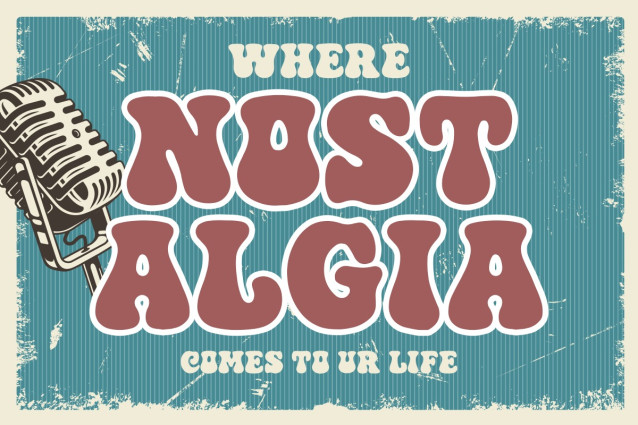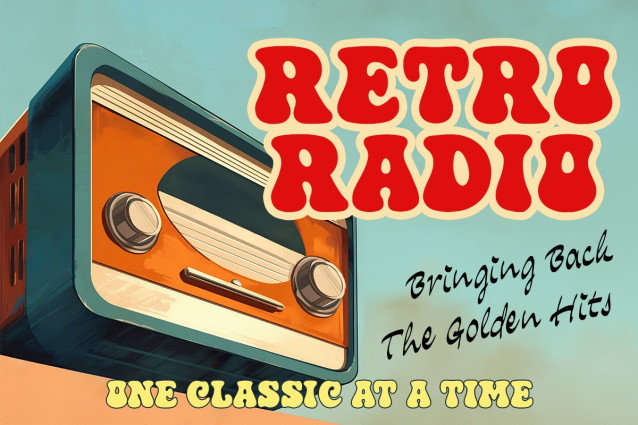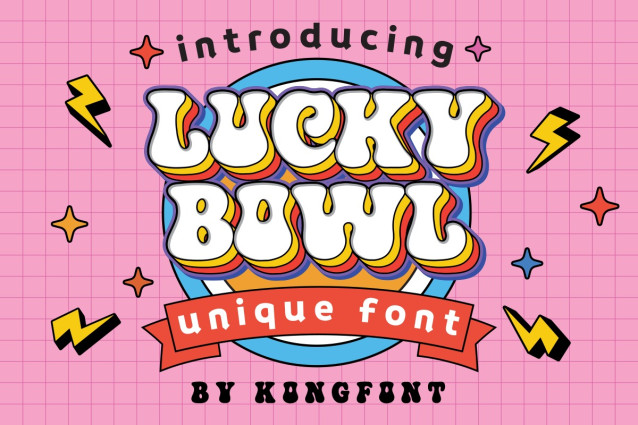
Lucky Bowl Font
Lucky Bowl Font a new look that is different from the general fonts. This font is a cool font that carries a vintage, simple, and cute feel. It can also be used as a bold and modern font. Lucky Bowl Modern Groovy Vintage Font has many matches when combined with the product to be used. Fashion brand tags such as clothing will work well with this typeface. There is no need to add excessive pictures and ornaments because the Lucky Bowl Modern Groovy Vintage Font has presented its identity where a simple yet vintage impression radiates. Lucky Bowl Modern Groovy Vintage Font is a typeface that can be used as digital fonts and print fonts. This font can be used as a title that appears first in intro videos that catch the viewer’s attention at a first impression. Posters and magazine cover work especially well when using the Lucky Bowl Modern Groovy Vintage Font. This is because even though this font is a cute typeface, it can be seen clearly and can be distinguished per letter. So this font is included in legible fonts. Our Display fonts collection is compatible for use as; Figma Fonts, Canva Fonts, Freepik Fonts, and Adobe Fonts. They also work as Windows Fonts and Apple Fonts. For your social media needs, you can use and install fonts in our Serif font collection to use as Instagram Fonts, Facebook Fonts, and Twitter Fonts.